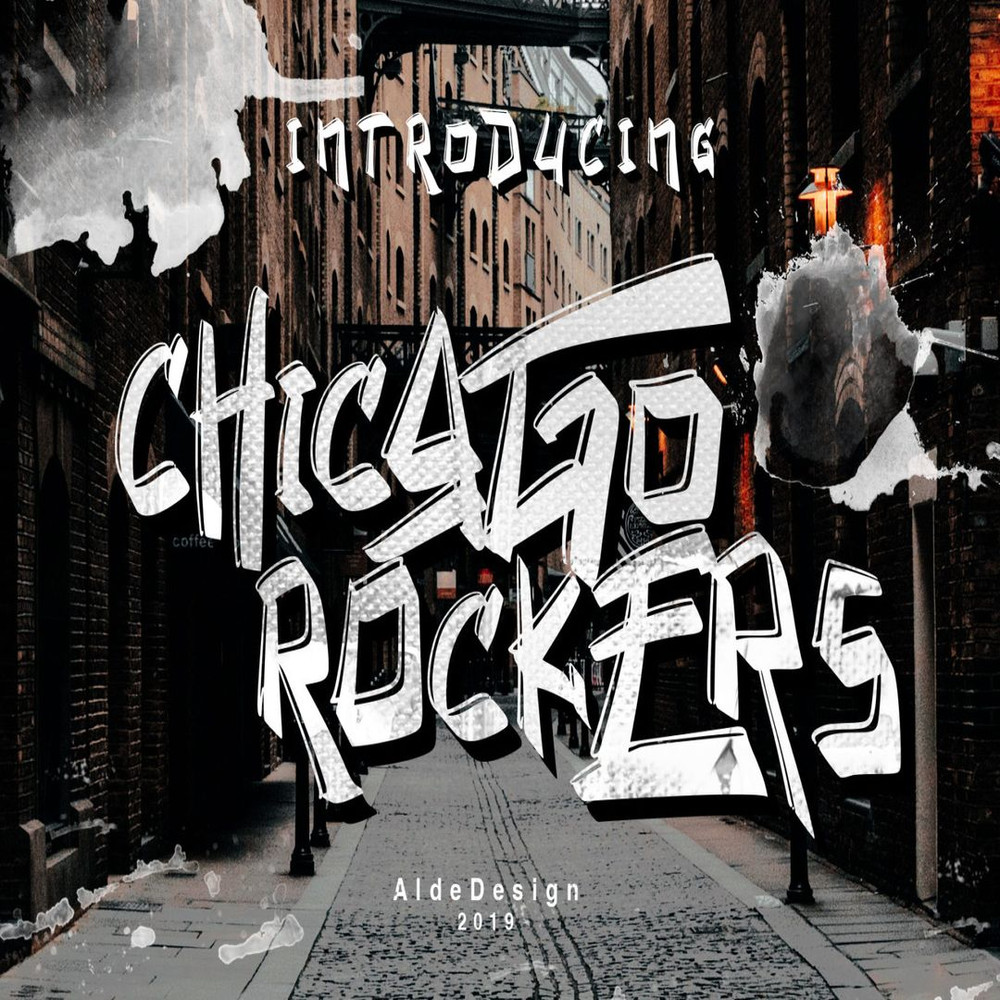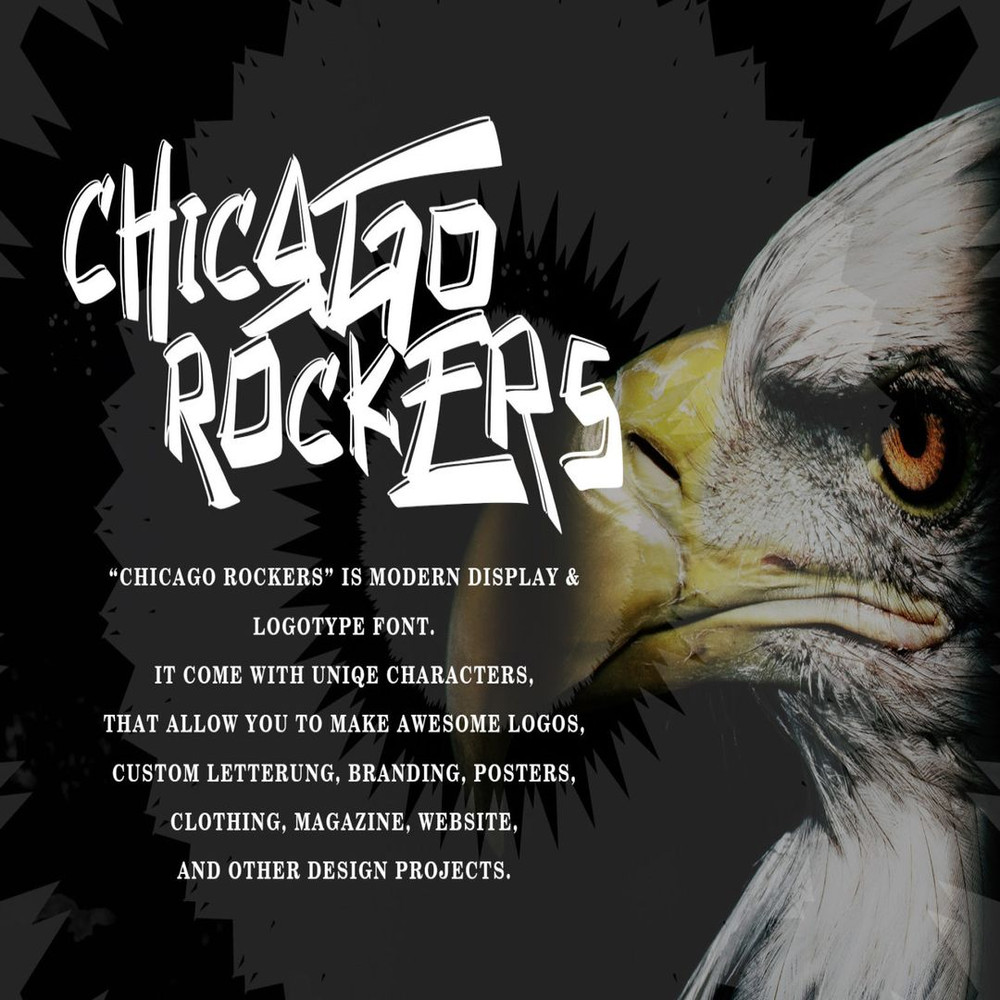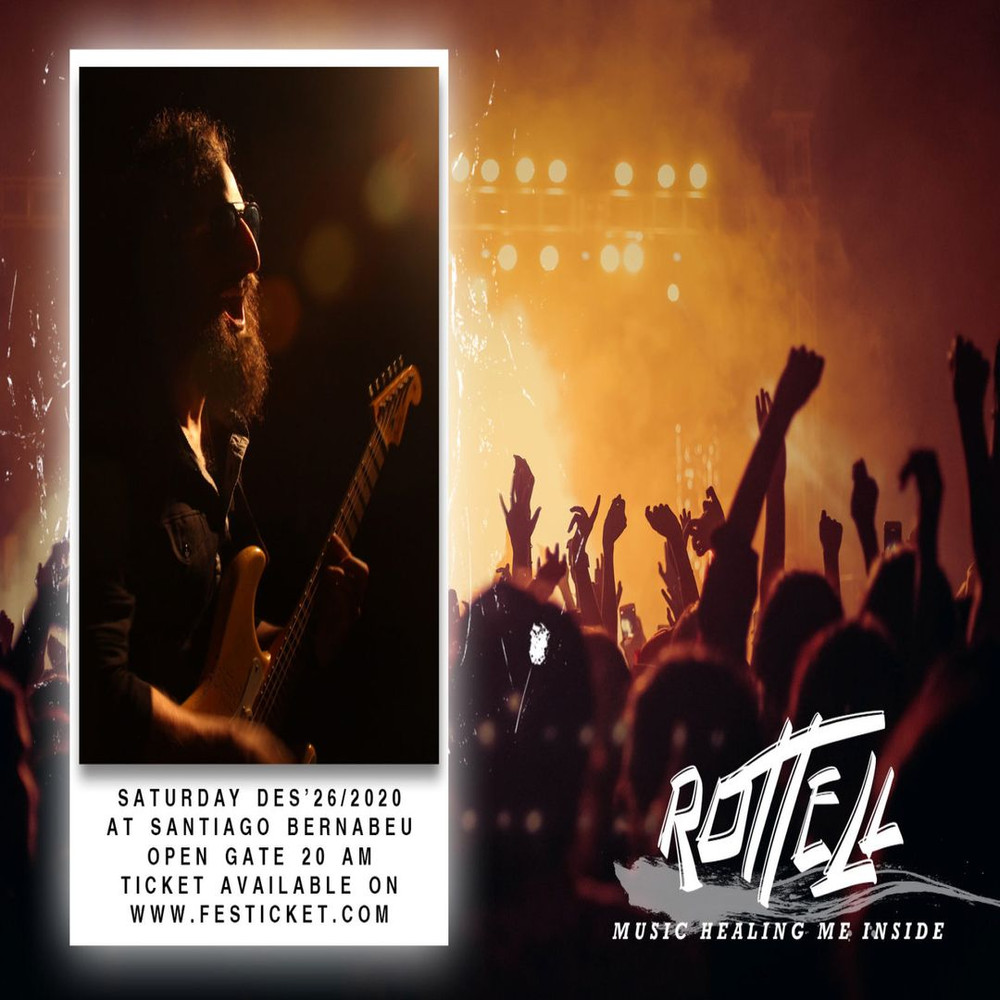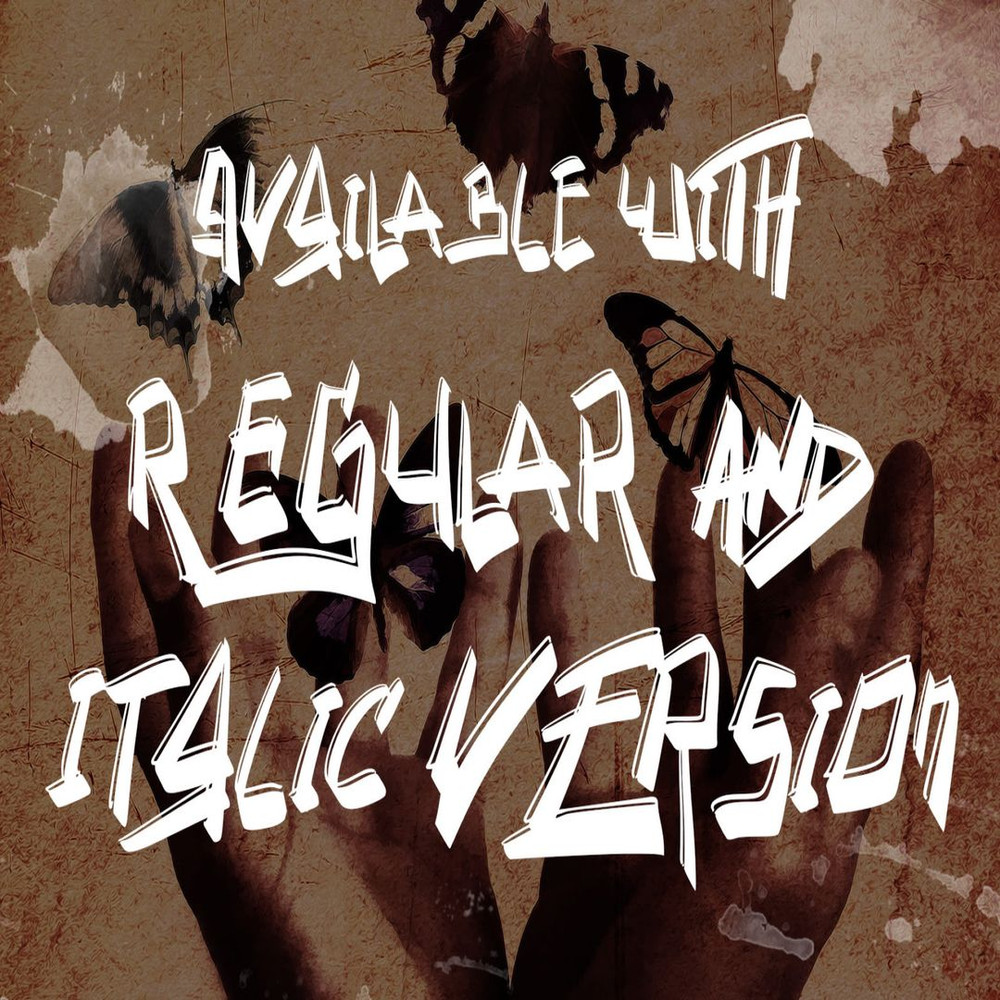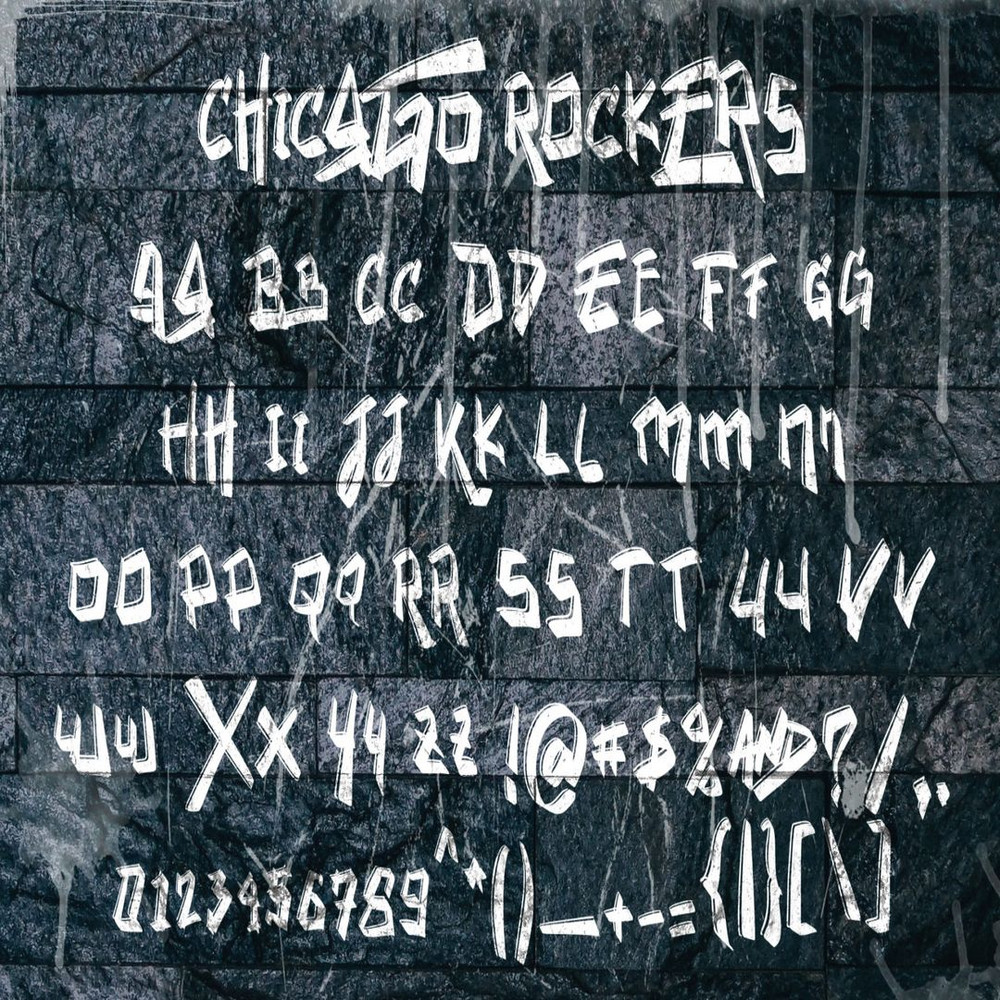
Chicago Rockers is a great font for any project! This font made with a unique taste comes with an awesome touch. We keep this font looks readable, elegant, stylish, catchy, and absolutely easy to use.
Chicago Rockers is a great choice for a watermark on branding, design, wedding, photography, signature, logo design, album cover, business card, quotes, and much another design project.